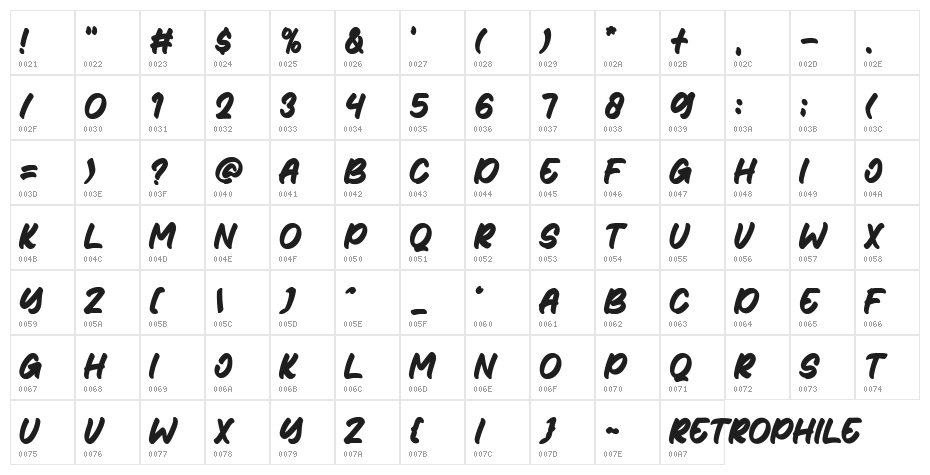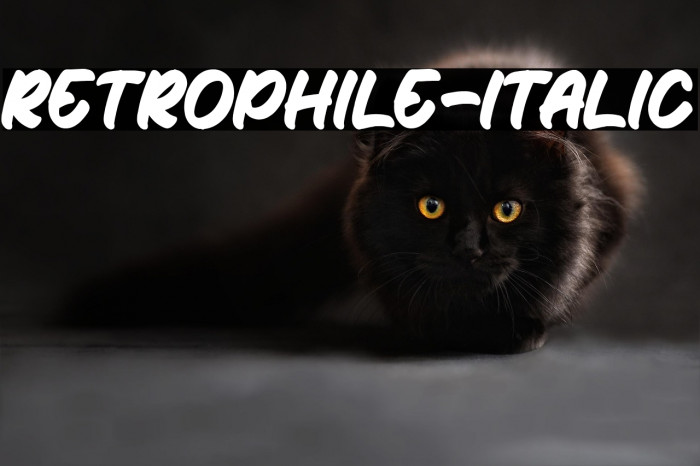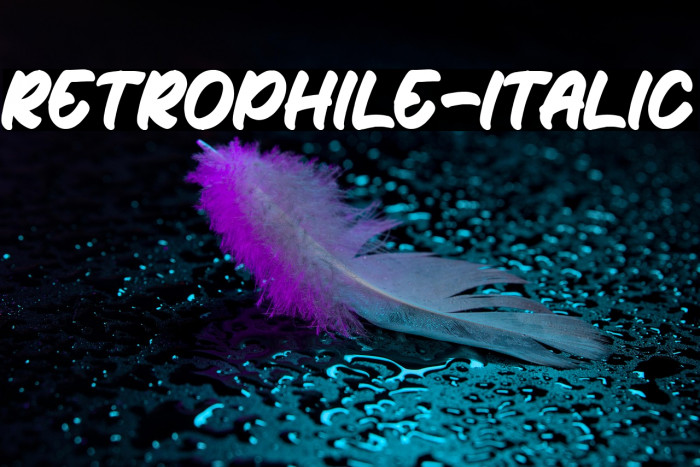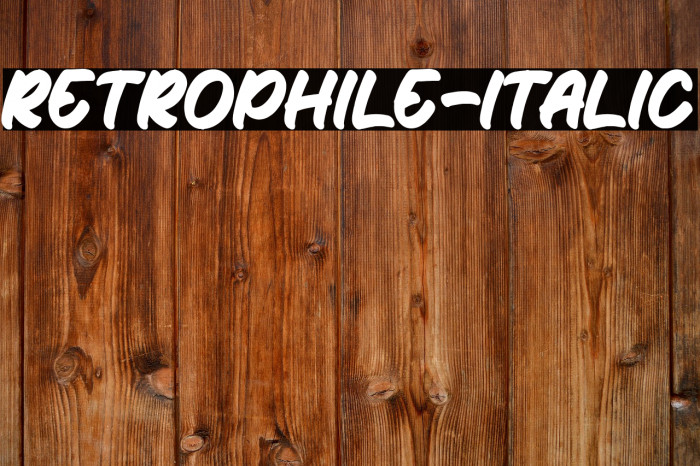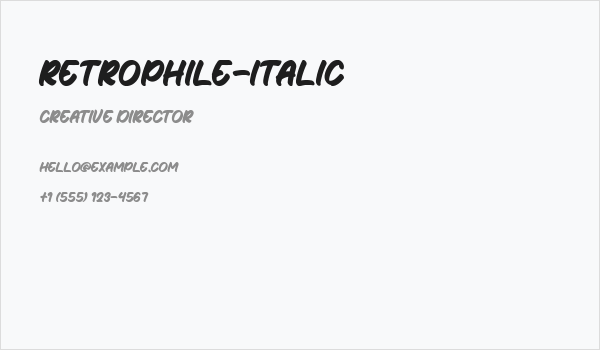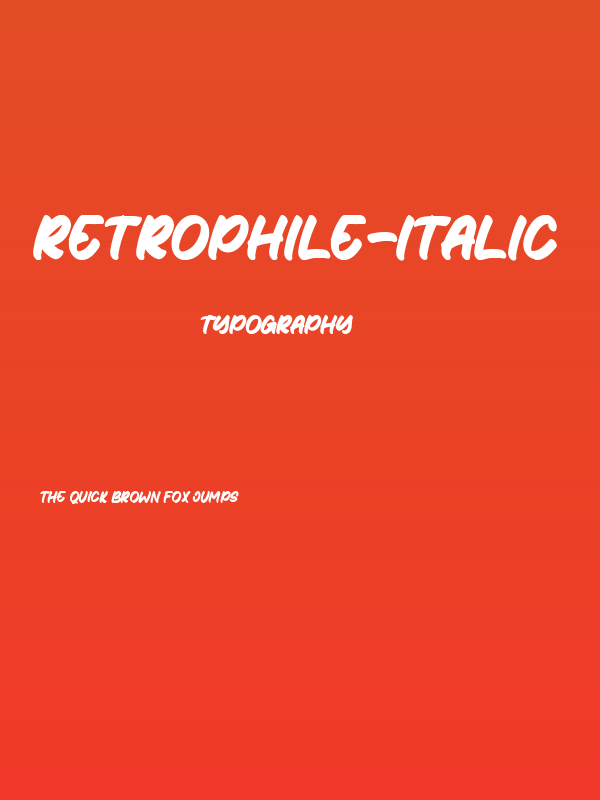
Retrophile-Italic Font
Retrophile-Italic Description
This font exudes a bold and dynamic presence with its thick, rounded strokes and italicized slant. The characters are designed with a playful and energetic style, making them stand out with a sense of movement and flair. The uppercase and lowercase letters maintain a consistent flow, while the numbers and special characters complement the overall aesthetic. The font's boldness is emphasized by its substantial weight, which adds to its striking appearance. The character spacing is moderately tight, enhancing the cohesive look of the text. This font is ideal for projects that require a lively and impactful visual statement.
| Proposed Projects | Perfect for branding, posters, headlines, and any design needing a bold, energetic touch. |